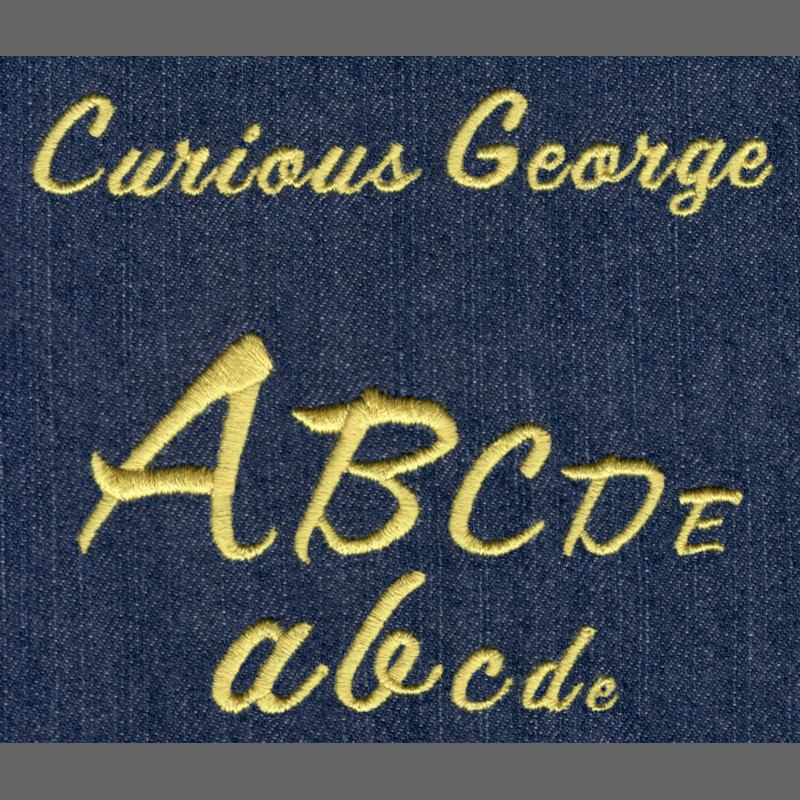
372 Curious George Mini Satin Font
Curious George Mini Satin Font comes in 0.5", 0.75", 1", 1.25" and 1.5" heights based on the capital "A". All sizes are finished in standard Satin Stitch and include uppercase letters, lowercase letters, numbers and four punctuation marks. Characters in this set (particularly in the smaller sizes) have very thin parts; lower upper thread tension and use only medium to heavy weight non-stretch fabric to ensure proper stitch out.